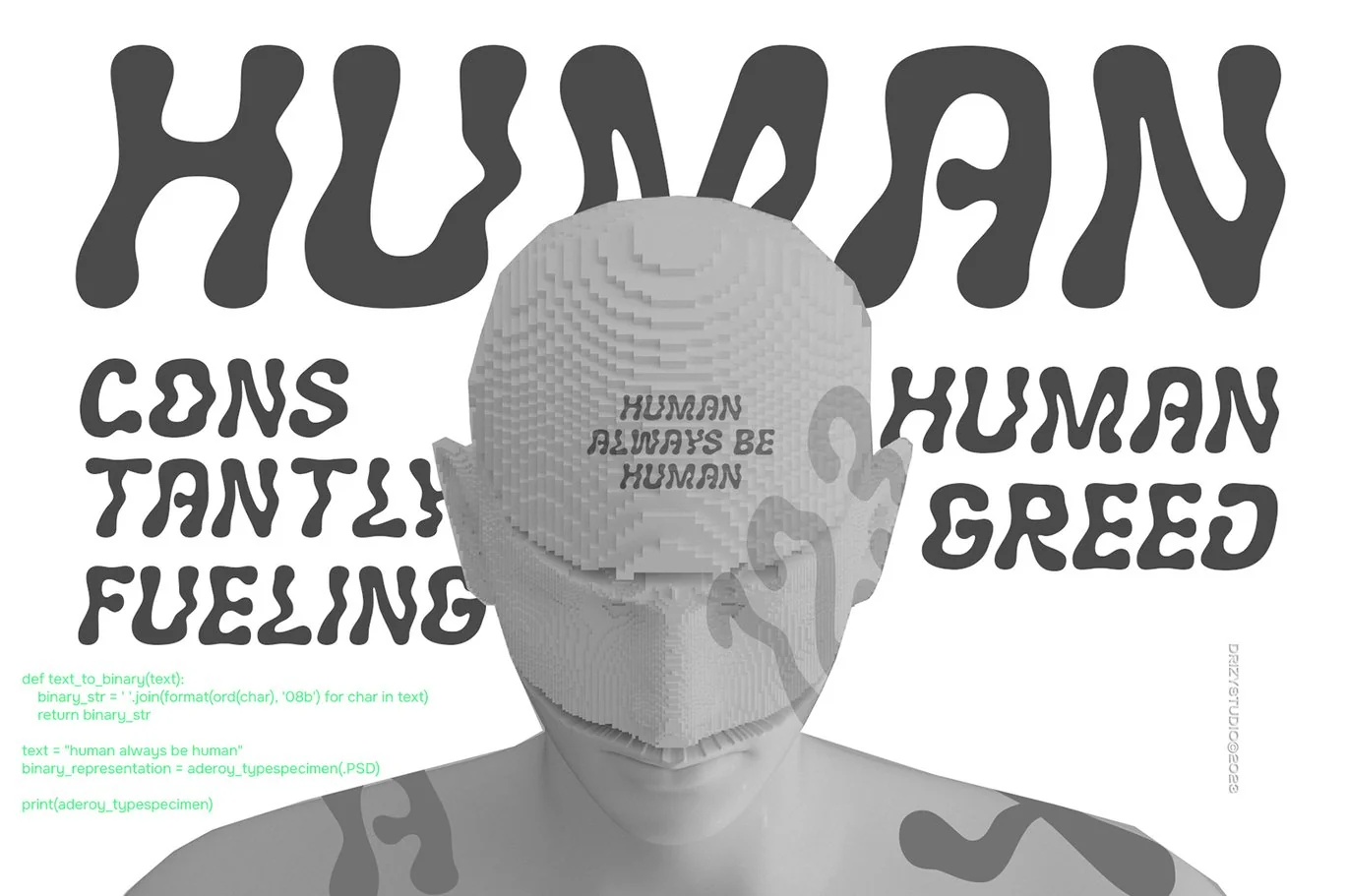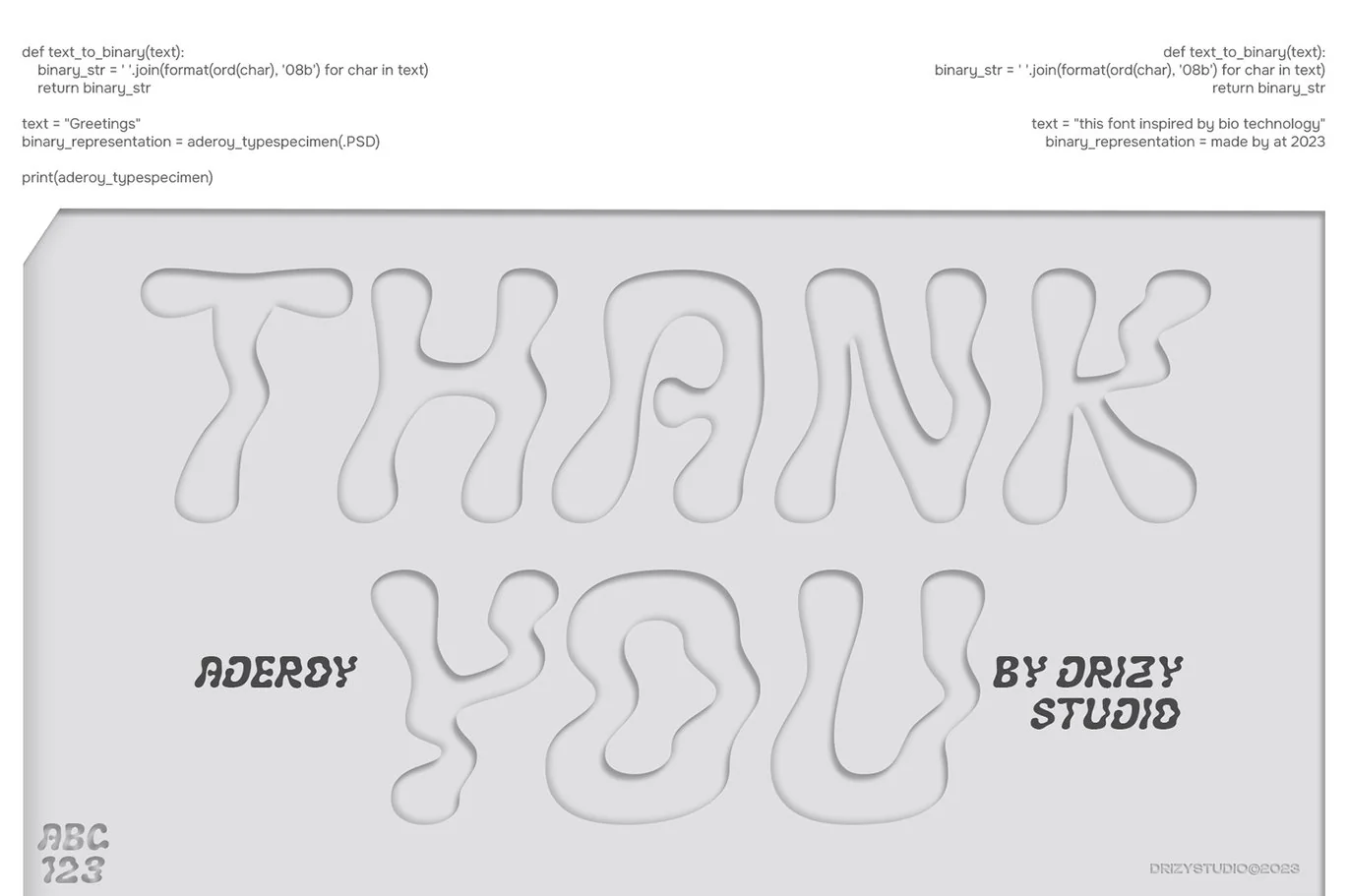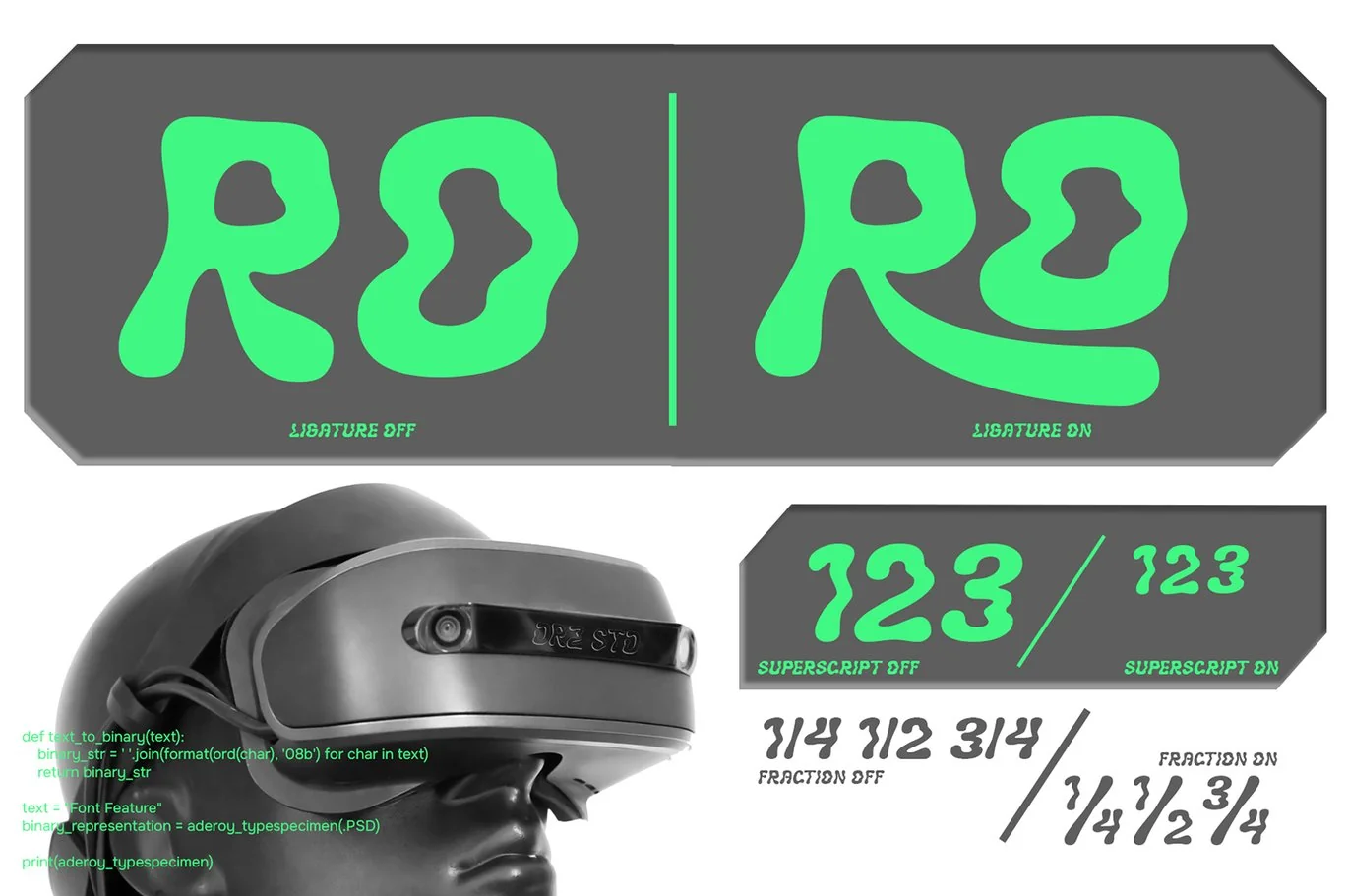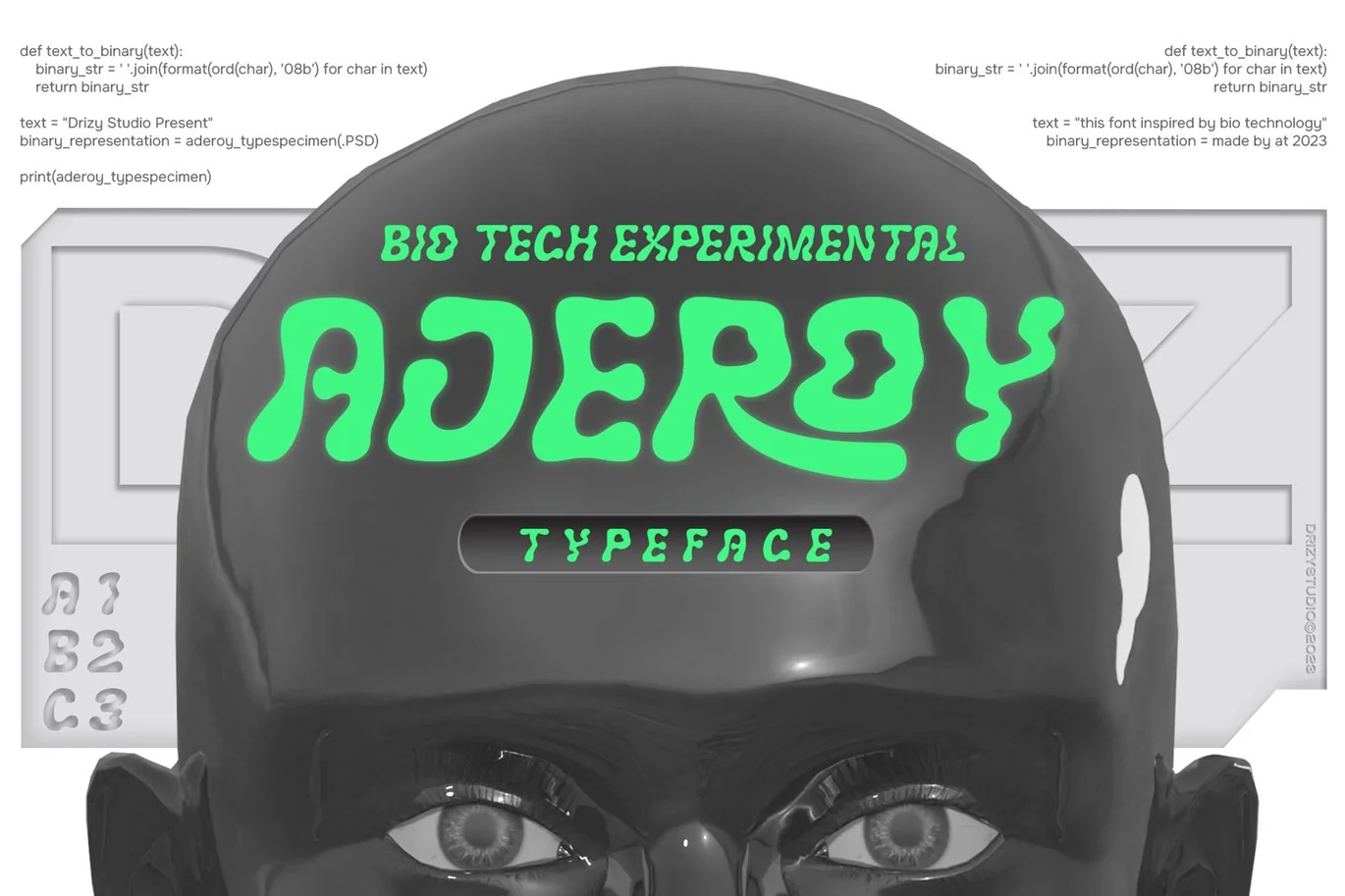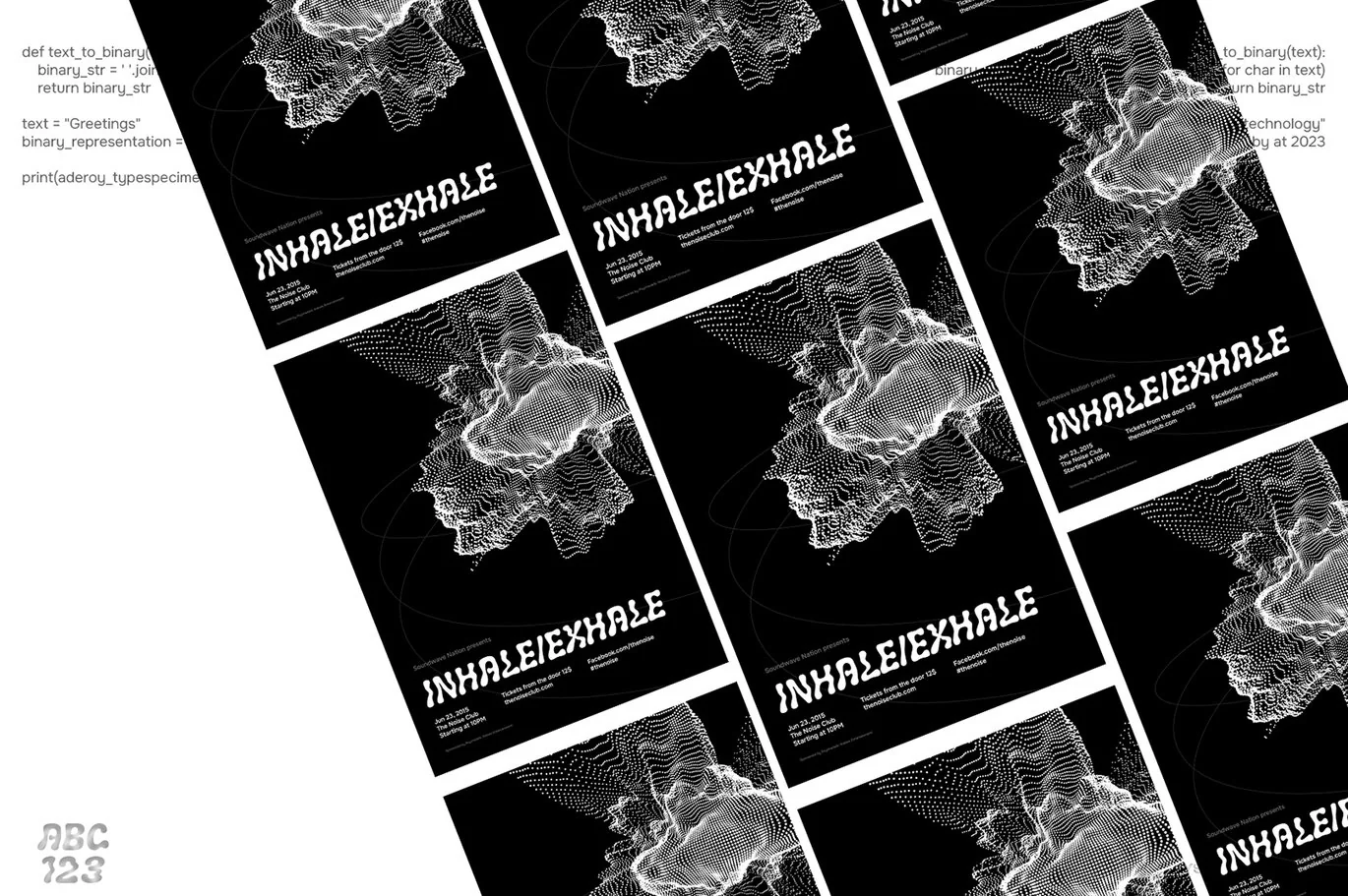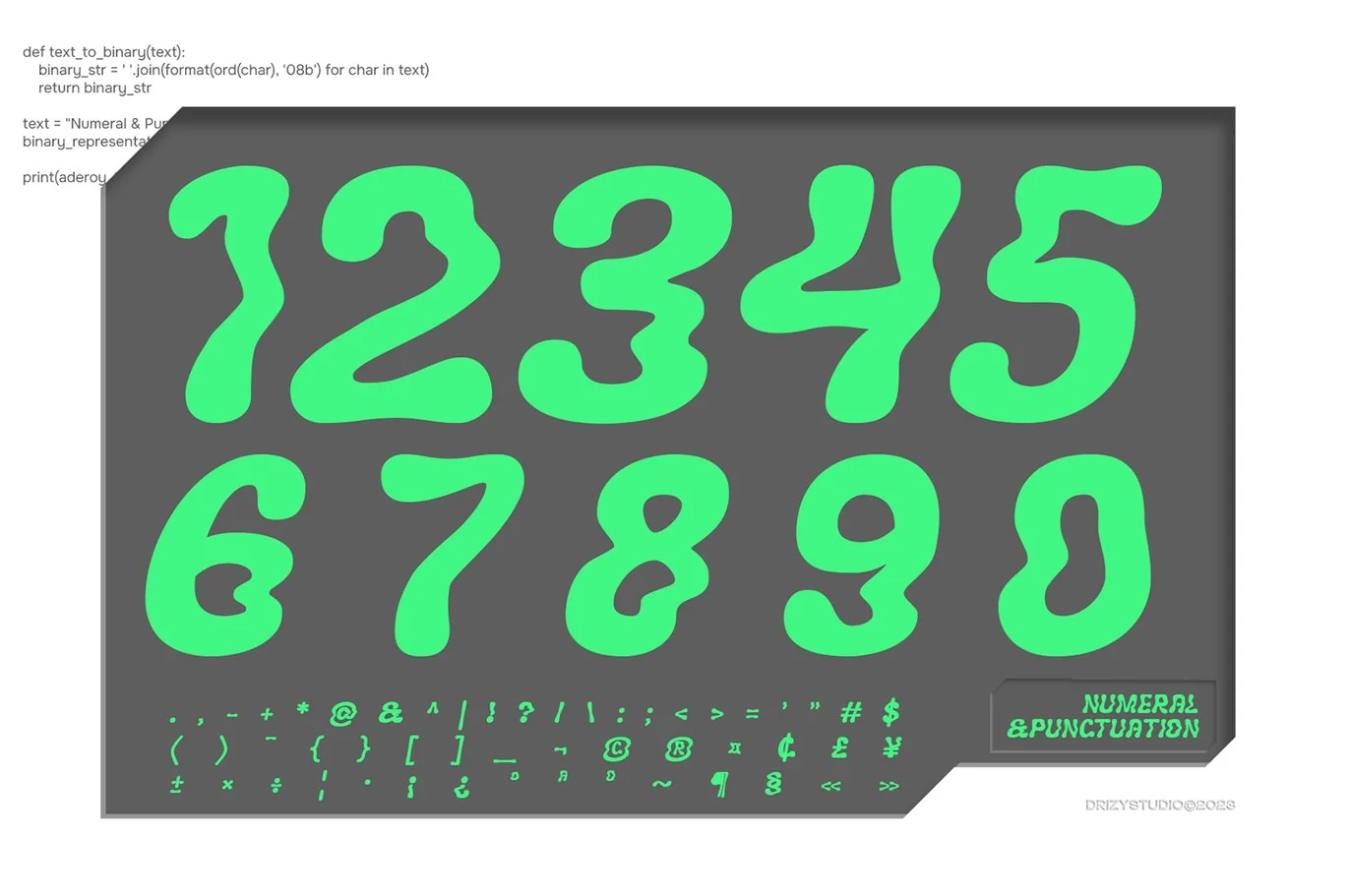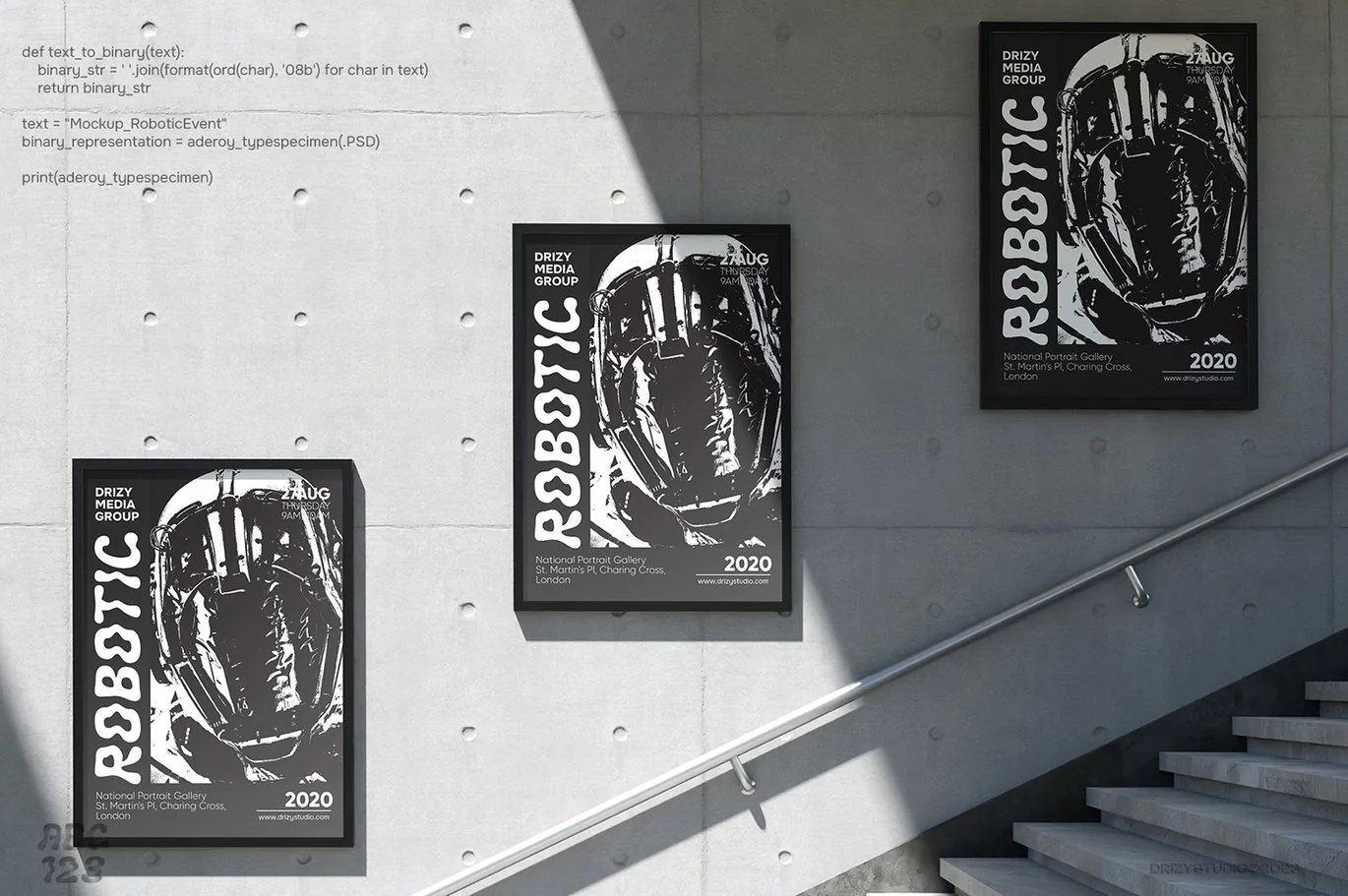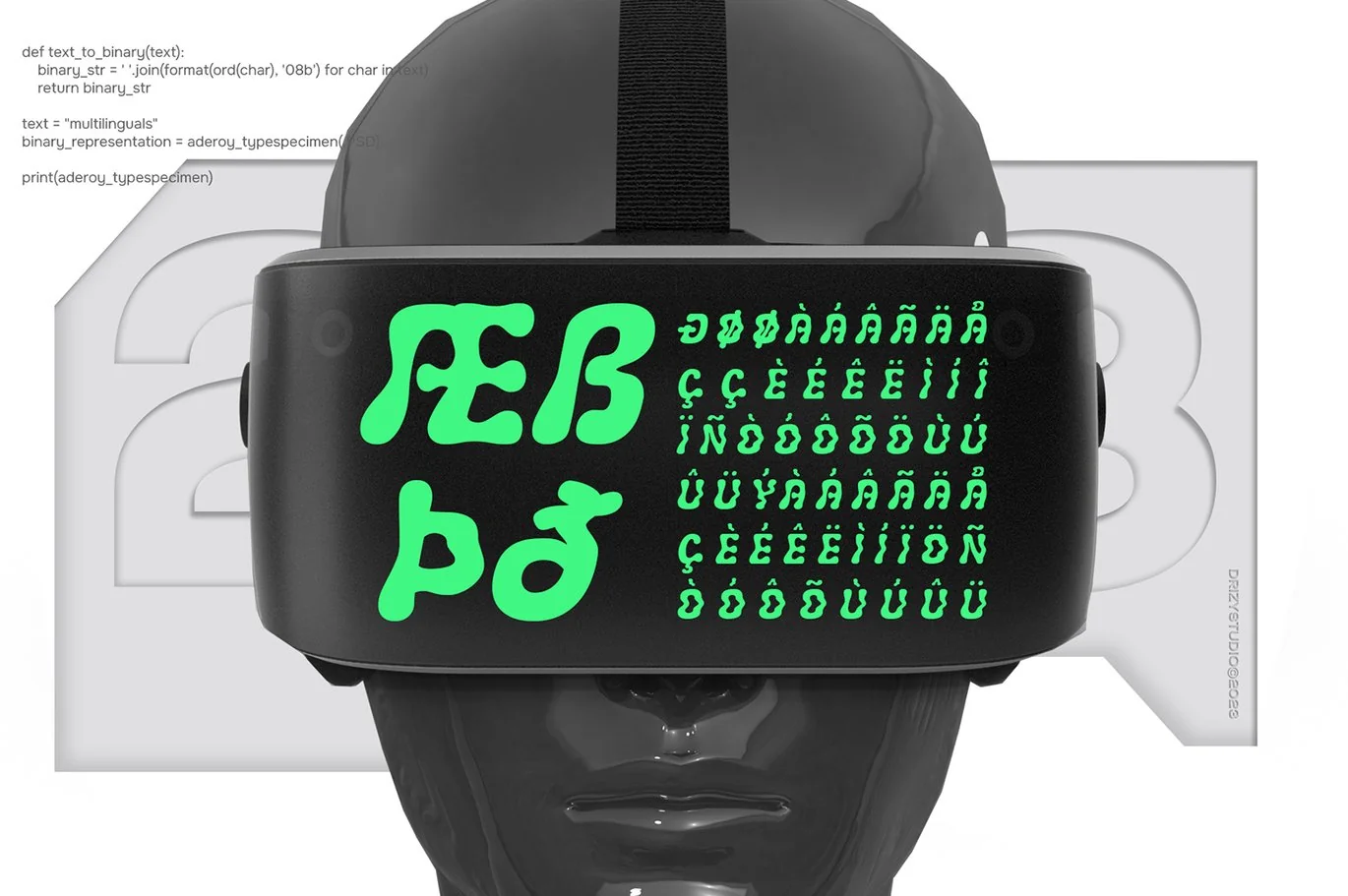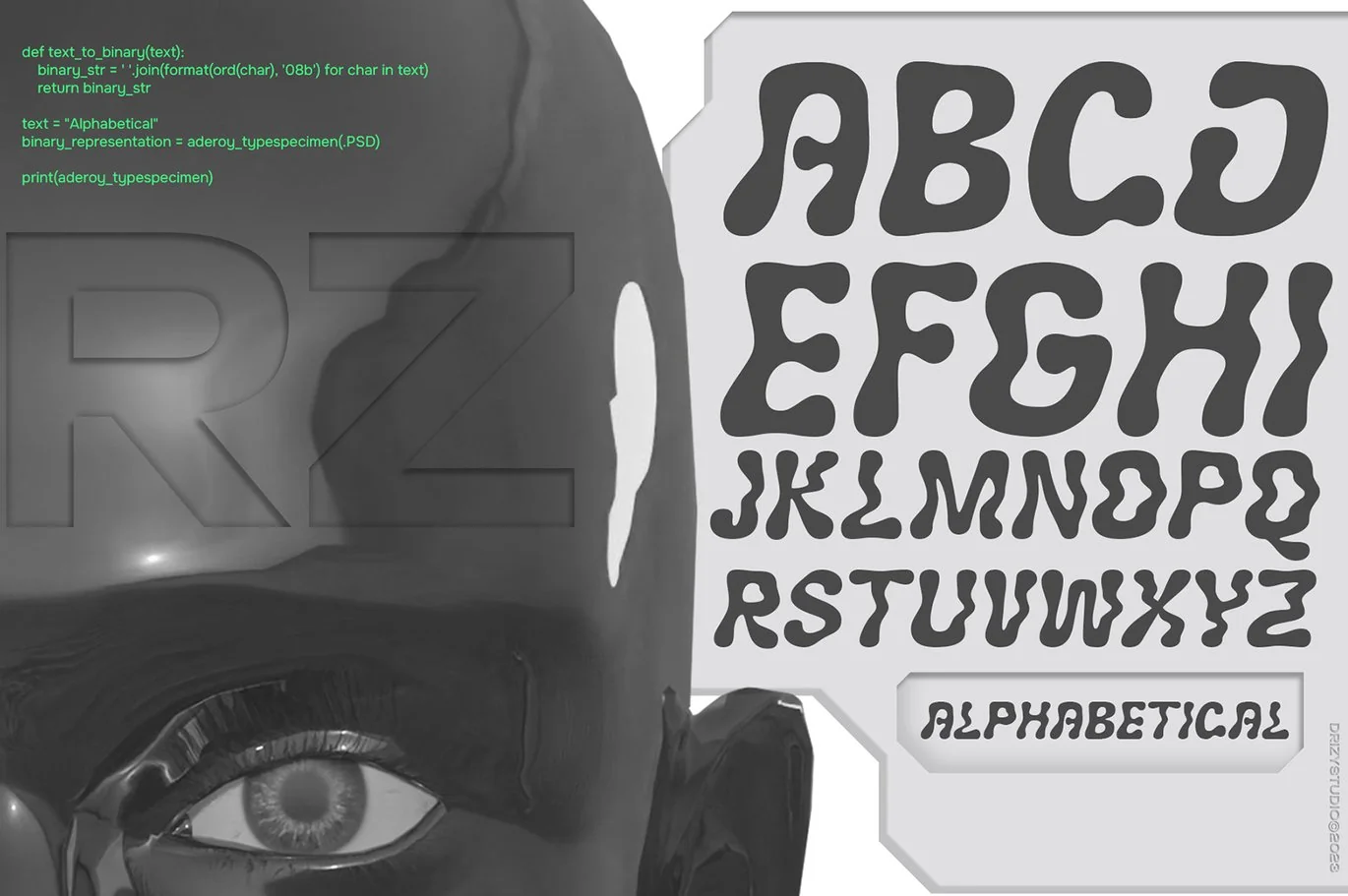
Aderoy – Experimental Bio Tech Font
Aderoy is not your ordinary font; it’s a groundbreaking, experimental bio tech font that merges science and artistry. Each character in Aderoy is meticulously crafted to reflect the symbiosis of technology and biology, resulting in a visually stunning and unique typeface.
Elevate and explore the design possibilities with this psychedelic font!